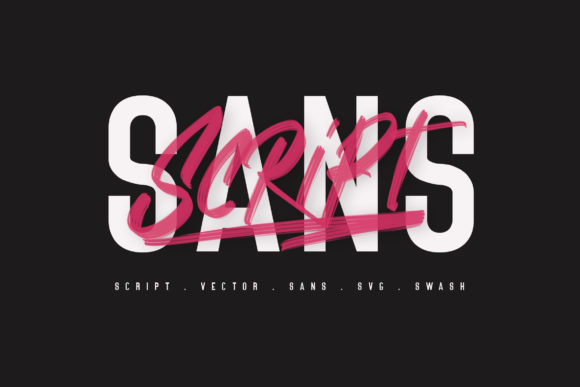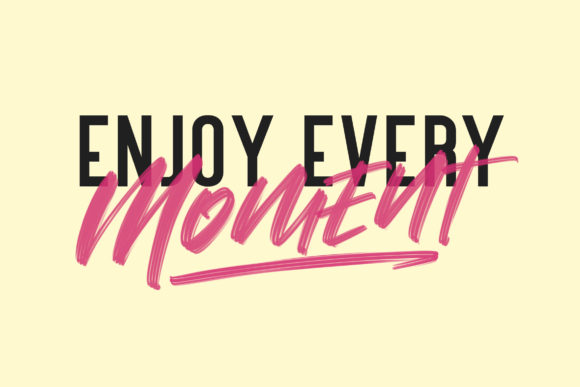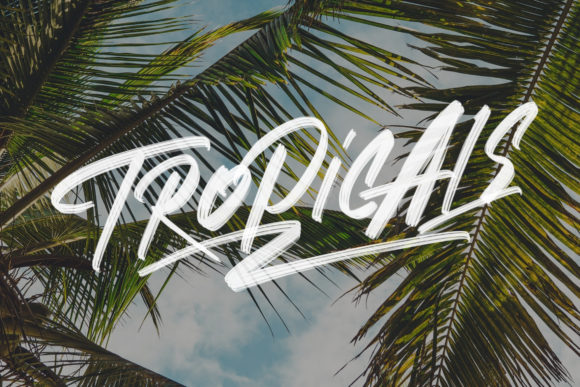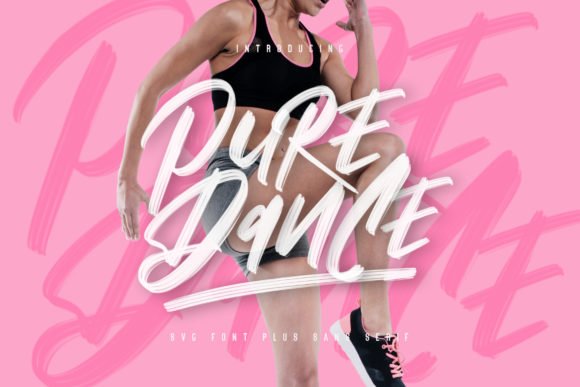
Introduction to Pure Dance Font
Pure Dance is an amazing SVG handwritten font.
Give your designs an authentic brush handcrafted feel with Pure Dance It is perfectly suited for a wide amount of projects.
Key Features of Pure Dance Font
Why Choose Pure Dance Font?